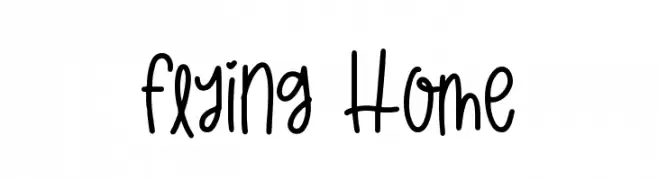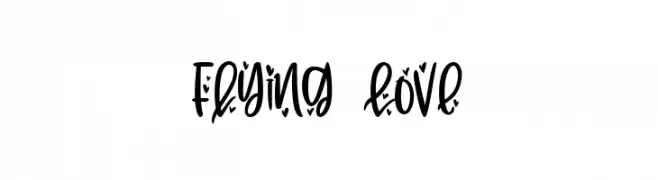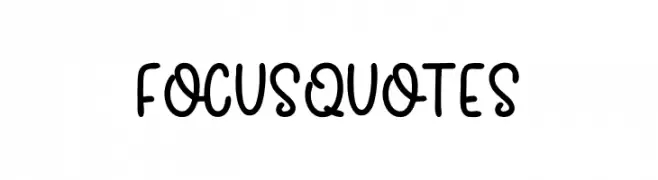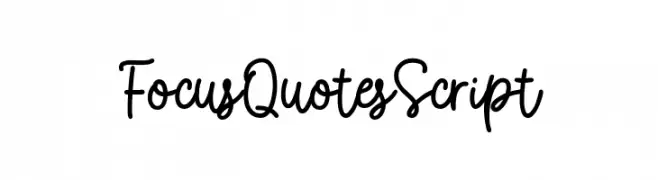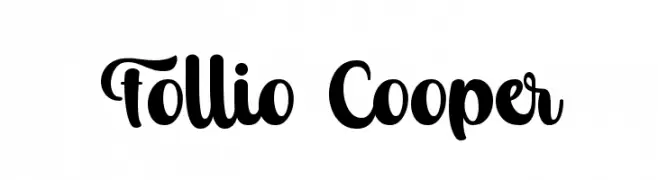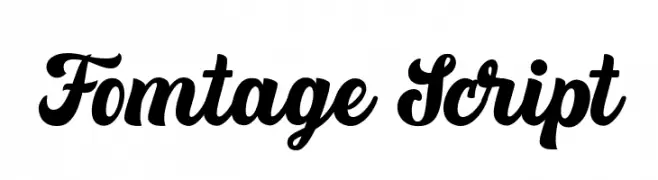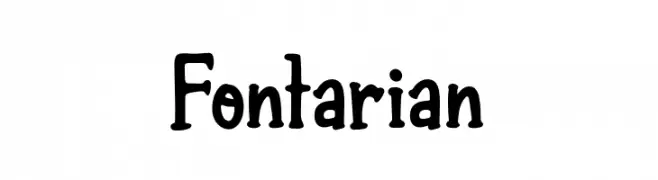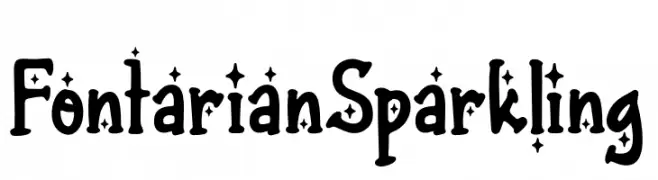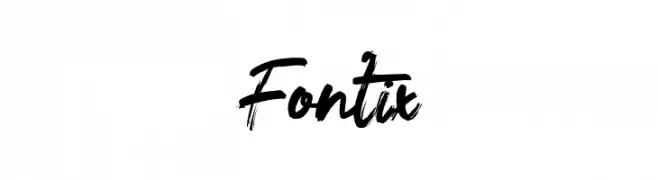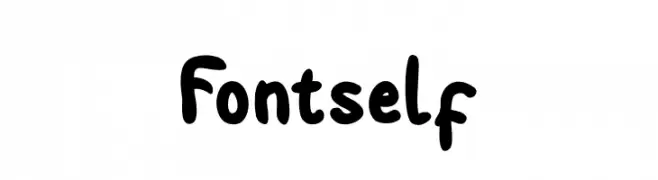
A playful handwritten font with a casual and friendly appearance.
A playful, heart-themed decorative font with bold strokes.
A modern, geometric font with tall, narrow characters and uniform stroke width.
A playful, rounded font with smooth strokes and a casual, friendly appearance.
A playful, handwritten font with smooth, rounded edges and a casual style.
A playful and casual script font with smooth, flowing lines and rounded edges.
A playful, handwritten script font with a casual and fluid style.
A bold, expressive handwritten font with fluid strokes and dynamic style.
A decorative font with leaf and vine motifs, offering a whimsical and organic style.
A bold, playful script font with smooth, flowing characters.
A delicate and elegant script font with flowing, cursive design.
A bold, flowing script font with elegant, connected letterforms.
A playful, hand-drawn font with bold, rounded characters and a whimsical style.
A playful, decorative font with sparkling star accents.
A bold, brush-style script font with flowing, connected characters.
A bold, brush-style font with dynamic, hand-painted strokes.
A bold, brush-like font with an expressive, hand-painted style.
A bold, brush-style font with dynamic, hand-painted strokes.
A bold, brush-style handwritten font with dynamic strokes.
A playful, bold font with rounded edges and a hand-drawn style.
A bold, playful font with rounded, thick strokes and a whimsical style.
Ornamental vector symbols with an ancient, mystical style.
A collection of decorative hieroglyphic symbols inspired by ancient Egyptian writing.
Pictogram font with ISO 7010 mandatory safety symbols.
Standardized warning sign pictograms with bold, simplified icons.
A semaphore flag-inspired font with figures holding flags to represent characters.
A decorative font with bold geometric shapes and intricate internal patterns.
An elegant, flowing script font with smooth, continuous strokes.
A playful, bold handwritten font with thick, rounded strokes.
A playful, informal handwritten font with smooth, flowing lines.
A fluid, elegant script font with smooth, flowing lines and a cursive style.
A futuristic, geometric font with angular, sharp edges and consistent stroke width.
A futuristic, geometric font with a 3D, angular design.
A futuristic, 3D italic font with a geometric and tech-inspired design.